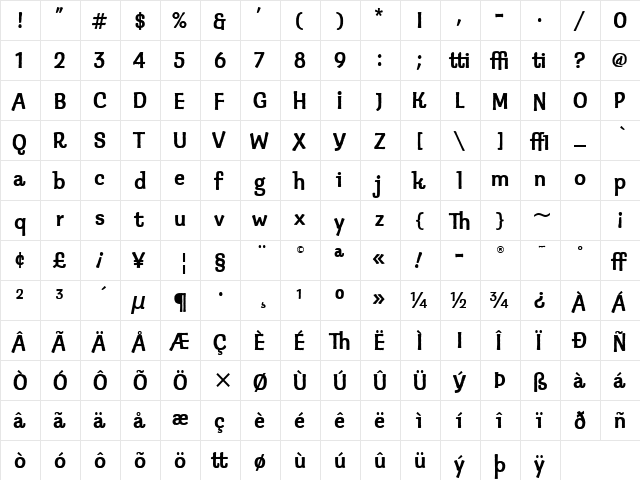
Klepto ITC TT Roman
Design Context for Klepto ITC TT Typeface
Klepto ITC TT offers clean, dependable letterforms without strong stylistic allegiance, making it a practical choice for designers who need flexibility.